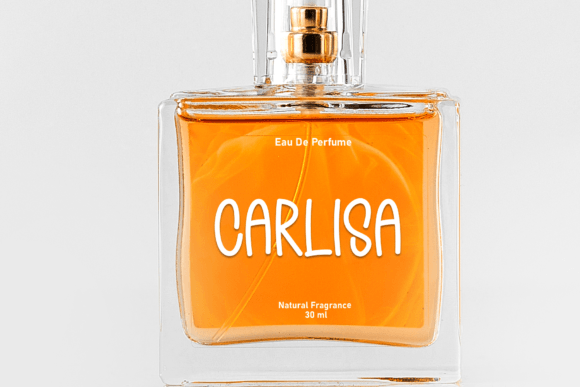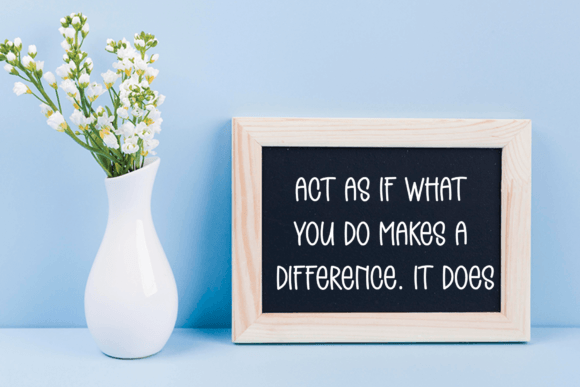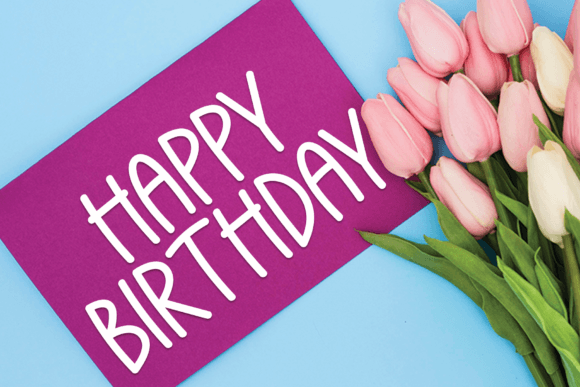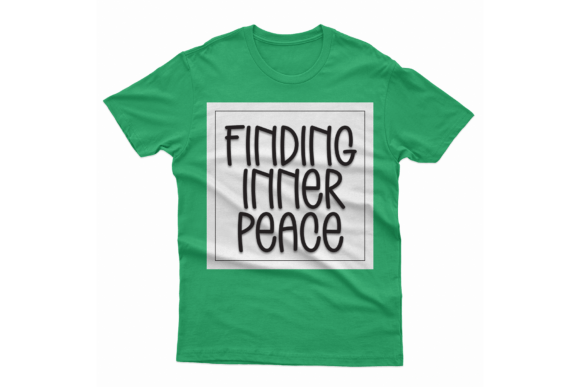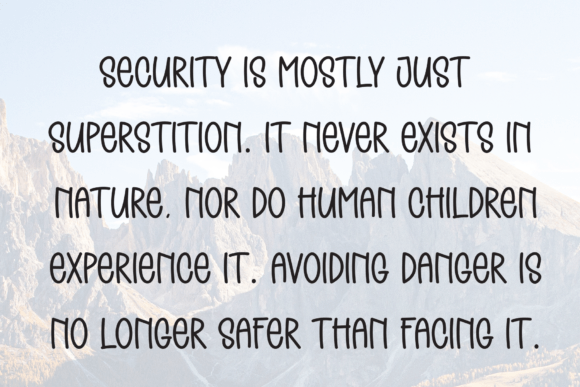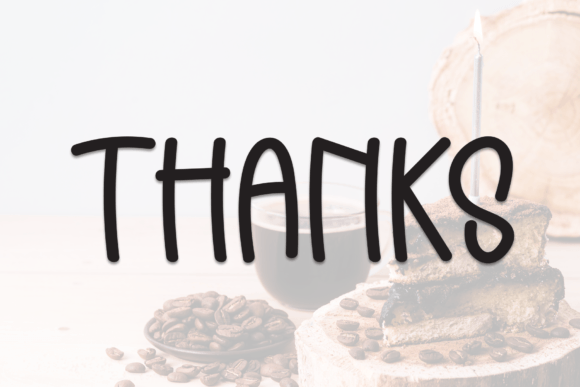
Introduction to Rustic Coffee Font
Have you ever been working on a creative project, pouring your heart and soul into it, only to find the perfect font to tie everything together eludes you? That was the case for many designers who stumbled upon the charming Rustic Coffee Font. Its unique, handwritten style has been making waves in the design community, and it’s easy to see why.
With its natural, effortless feel, the Rustic Coffee Font is the perfect addition to any design. Whether you’re working on a project that requires a high-quality, premium look or something more casual and laid-back, this font is sure to deliver. And the best part? It’s a free download, making it an invaluable resource for designers of all levels.
Key Features of Rustic Coffee Font
- Unique, Hand-Drawn Design: The Rustic Coffee Font features a distinctive, hand-drawn aesthetic that adds a personal touch to any creative project.
- High-Quality Typography: This font is designed with high-quality typography in mind, ensuring that your text stands out with clarity and precision.
- Transparent Background: The transparent background of the Rustic Coffee Font makes it easy to integrate into your design, allowing you to focus on the creative aspects of your project.
- High Resolution: The font is available in high resolution, making it perfect for use in large-scale designs or print materials.
- Perfect for Coffee Shops and Cafes: The Rustic Coffee Font is specifically designed for use in coffee shops and cafes, making it an excellent choice for branding and marketing materials.
Honest Review: Rustic Coffee Font
As a designer, I’m always on the lookout for high-quality design resources to elevate my creative projects. The Rustic Coffee Font is one such find that caught my attention. This font is perfect for coffee shops, bakeries, or any business that wants to give off a cozy, welcoming vibe.
- High-quality design: The font is beautifully crafted with a mix of rustic and elegant elements.
- Transparent background: The font’s transparent background makes it easy to use with any background image or color.
- Great for creative projects: The font’s unique design makes it perfect for creative projects like logos, invitations, and more.
While the Rustic Coffee Font is a great addition to any designer’s toolkit, there are a few limitations to keep in mind:
- Limited font weights: The font only comes in a few weights, which may limit its versatility.
- No italics or bold: The font does not come with italic or bold versions, which may be a drawback for some designers.
Overall, the Rustic Coffee Font is a great design resource that can add a touch of warmth and coziness to any creative project. While it has some limitations, its high-quality design and free download make it a great choice for designers on a budget.
For a high-quality design, use the Rustic Coffee Font in combination with other design elements, such as images and graphics. Experiment with different font sizes, colors, and styles to create a unique look. Also, use the font in conjunction with a transparent background to add depth and visual interest to your design.
The Rustic Coffee Font is ideal for creative projects that require a warm and inviting tone, such as coffee shop menus, wedding invitations, and food blogs. Its unique style and transparent background make it perfect for adding a touch of elegance and sophistication to your design.